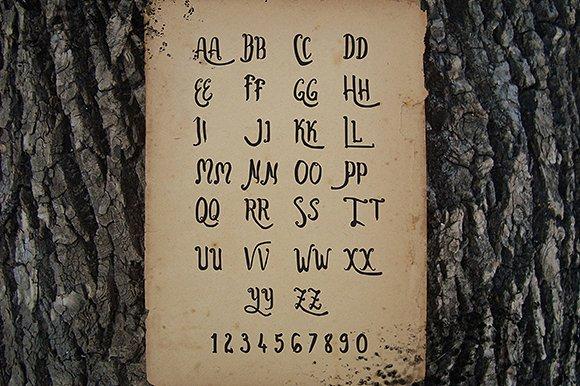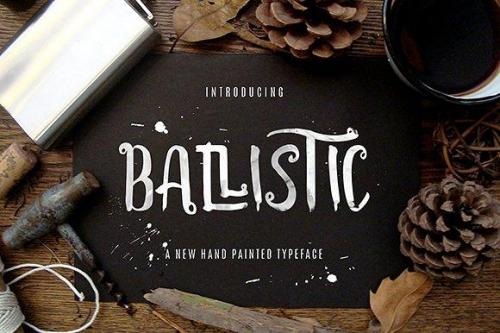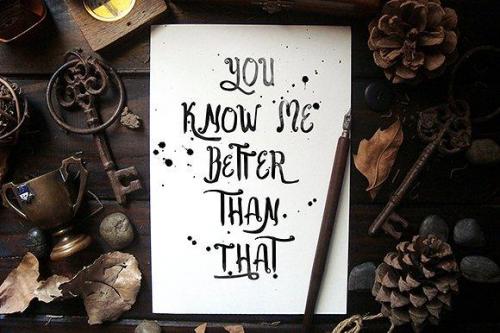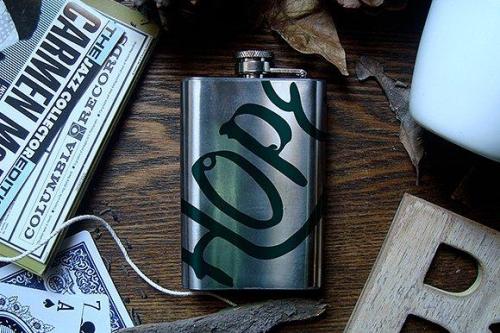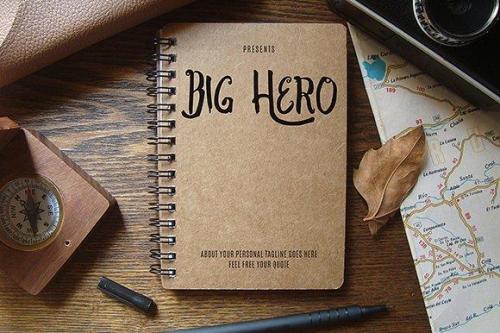
Ballistic is a font with a strong personality that works well in many types of design. Can be used for various purposes such as headings, signature, logos, wedding invitation, t-shirt, letterhead, signage, label, news, posters, badges etc.